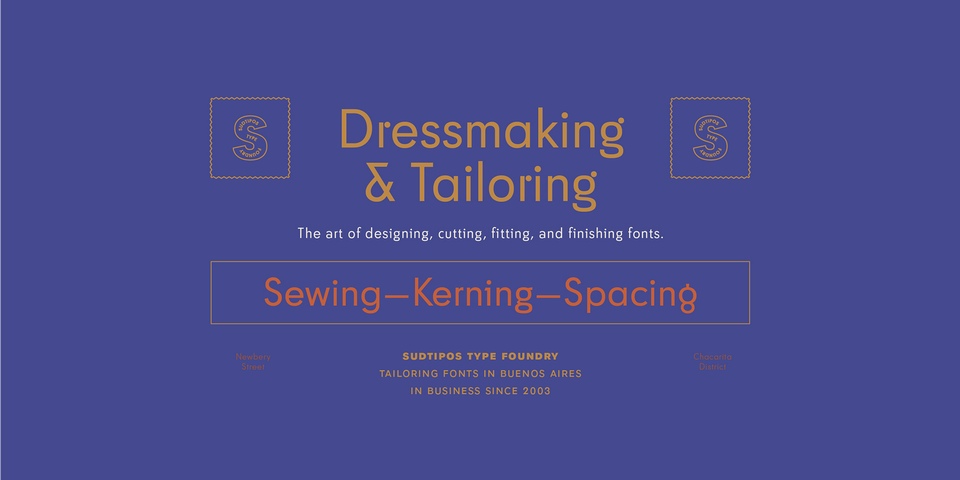
Tafel Sans Pro Font
Tafel Sans Pro Font is perfect for educational institutions, academic publishing houses, classroom technology companies, mathematical software platforms, scientific research organizations, and systematic learning environments. Its scholarly character makes it ideal for university communications, educational software interfaces, academic conference materials, scientific presentation platforms, learning management systems, and any project requiring educational authority with academic precision and scholarly excellence appeal.
This font is exciting because it captures the clarity and systematic approach of educational excellence while delivering exceptional functionality for organizations dedicated to knowledge transfer, academic achievement, and the transformative power of structured learning. The precisely engineered letterforms reflect the methodical presentation and intellectual rigor required in educational settings, creating typography that inspires confidence in academic communications and scholarly discourse.
The Tafel Sans Pro Font family typically includes extensive weight variations from Thin to Black with corresponding italics, academic alternates, and comprehensive language support that enhance its scholarly personality. This professional collection enables educational professionals to create authoritative brand systems that maintain academic credibility while offering flexibility for various educational applications requiring both intellectual authority and contemporary accessibility standards.
Whether you're developing identity systems for educational technology companies, creating materials for academic conferences, or designing interfaces for learning platforms, Tafel Sans Pro Font Free Download delivers the scholarly authority and educational precision that resonates with academic communities worldwide. Its systematic presence ensures respected brand recognition across digital platforms and print materials, making it perfect for websites, mobile applications, and educational campaigns that celebrate academic excellence, scholarly achievement, and the fundamental importance of clear knowledge communication with contemporary educational standards and authentic academic professionalism.